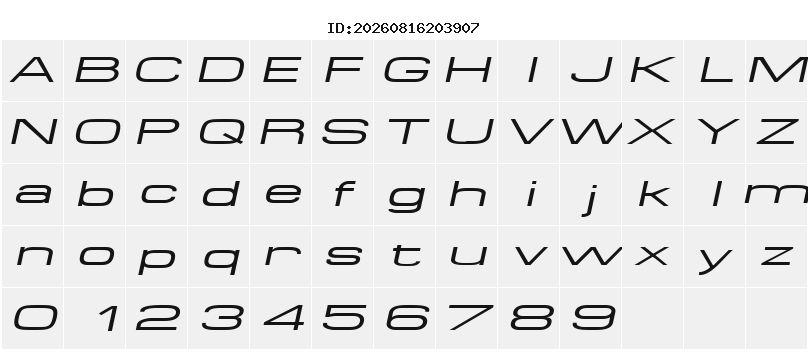
• Font Name: SpaceOutExtended
• Font ID: SWFTE:SpaceOutExtended Italic
• Full Font Name: SpaceOutExtended Italic
• PostScript Name: SpaceOutExtendedItalicSWFTE
About SpaceOutExtended.ttf
SpaceOutExtended.ttf is a modern, elegant sans-serif font designed for ultimate readability and visual harmony. Perfect for branding, headlines, web design, and print materials.